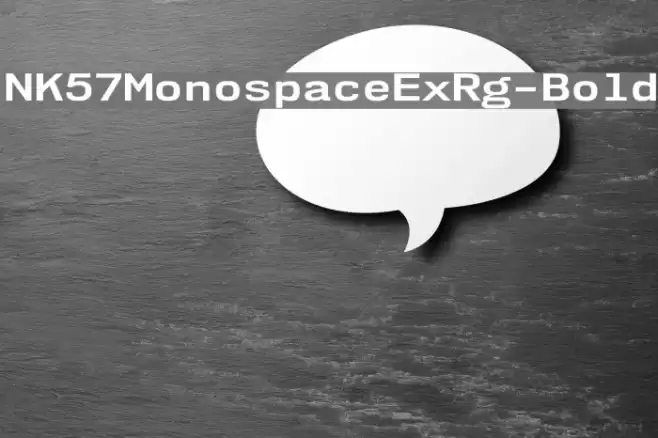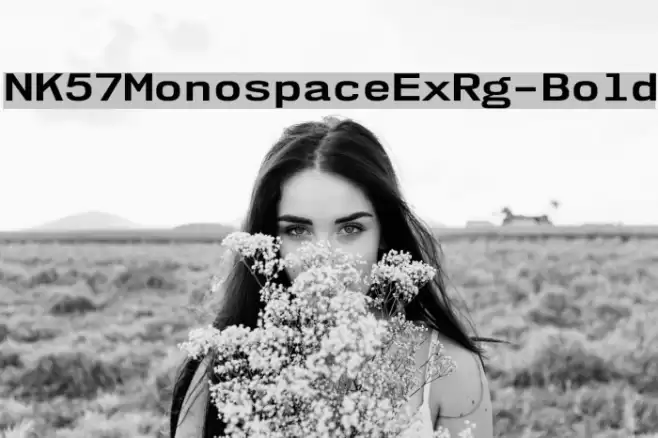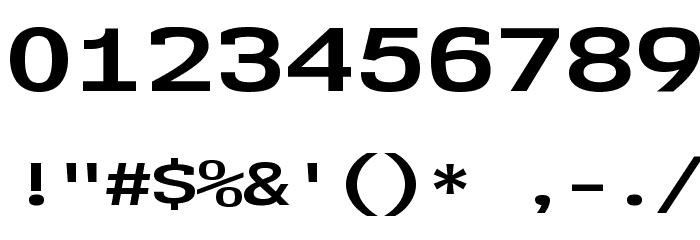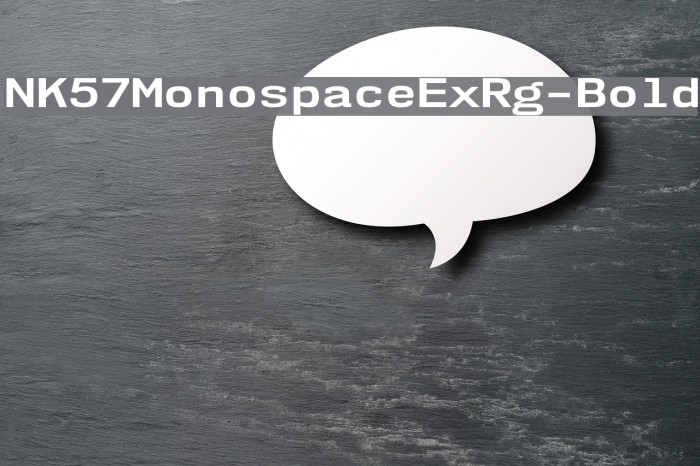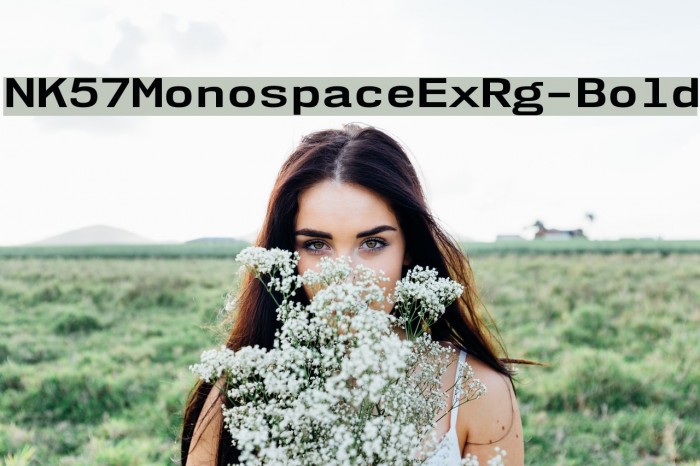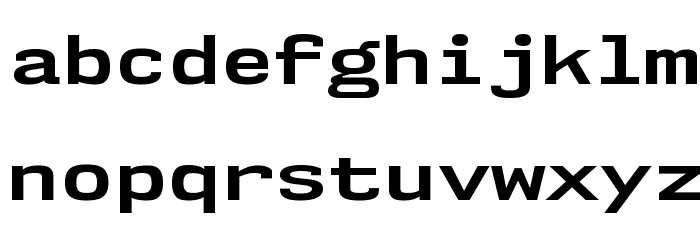
NK57MonospaceExRg-Bold Font
NK57MonospaceExRg-Bold Description
This font exhibits a robust and structured design, characterized by its monospaced nature where each character occupies the same amount of horizontal space. The bold weight enhances its presence, making it suitable for situations where clarity and uniformity are paramount. The strokes are consistent in width, providing a low contrast appearance that emphasizes readability and precision. The overall style is modern and utilitarian, with a clean and straightforward aesthetic that avoids unnecessary embellishments. This makes it particularly effective for coding environments, technical documents, and any application where alignment and clarity are crucial.
A bold, monospaced font with a modern, utilitarian design ideal for technical use from Basic fonts.
- Proposed Projects: Ideal for coding, technical documentation, data tables, and any project requiring precise alignment.
- Use Case: Coding, Technical documents, Data tables